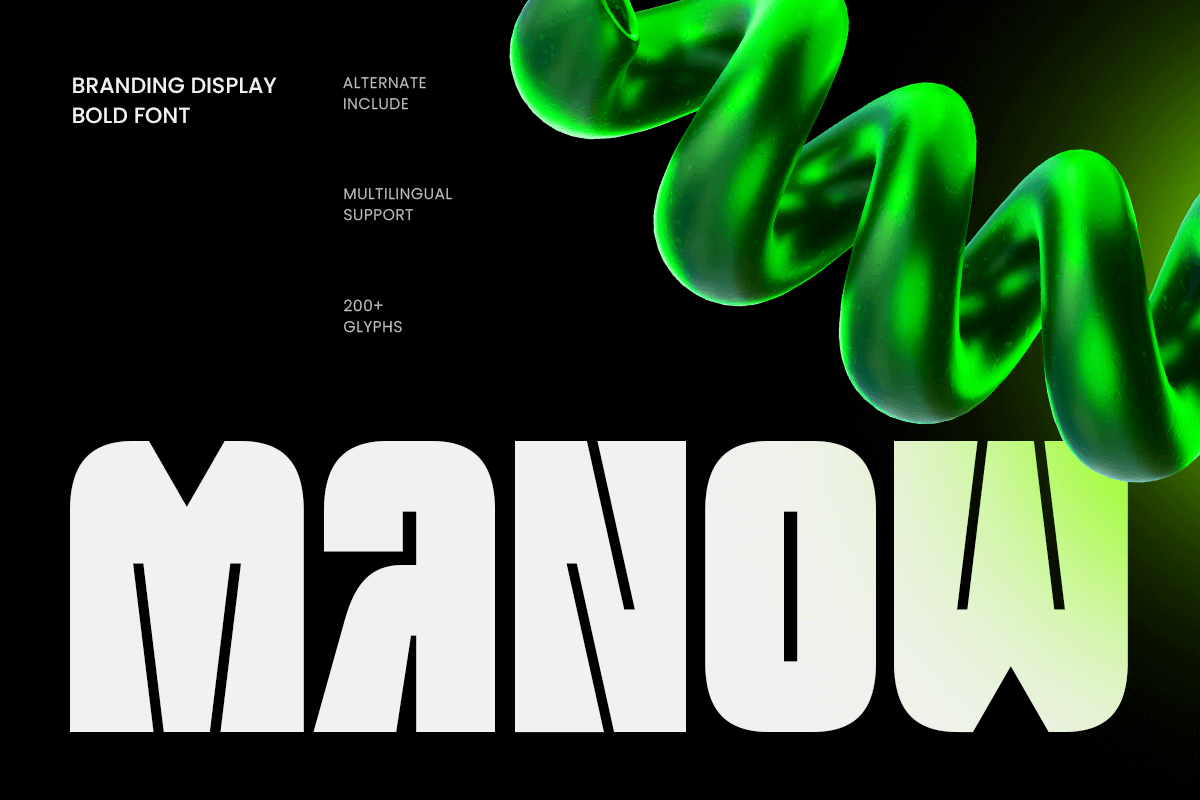
Manow
-Branding Display Bold Logo FontManow - Branding Display Bold Logo Font
MANOW is a branding display bold logo font built to deliver confident impact with clean, modern presence. Its bold structure and display-driven proportions create a strong typographic voice that feels professional, powerful, and instantly recognizable—ideal for brands that want to stand out fast.
Designed for brand identity systems and logo-focused typography, MANOW works seamlessly across wordmarks, logos, posters, packaging, website headers, signage, presentations, and social media graphics. Its bold weight ensures clarity at display sizes, making it a reliable choice for branding that needs strong visibility and modern simplicity.
Whether you’re building a startup identity, refreshing a corporate brand, or creating bold promotional visuals, MANOW provides a solid display foundation that keeps your branding consistent, modern, and memorable across digital and print use.
Inspiration Behind MANOW
MANOW is inspired by modern branding systems and bold display typography—where clarity, strength, and simplicity drive recognition. Built to support strong wordmarks and high-impact visual communication, it’s designed to perform across logos, headlines, posters, packaging, and digital campaigns with a confident, clean tone.
MANOW Font Features
Bold display letterforms built for logo and branding use
Strong readability for headlines and large text layouts
Clean modern structure for professional brand systems
OpenType features for polished, flexible typesetting
Branding logos, wordmarks, and identity systems
Headlines, posters, banners, and promotional graphics
Packaging, labels, and product presentation design
Website headers, presentations, and social media visuals
Signage and modern campaign typography